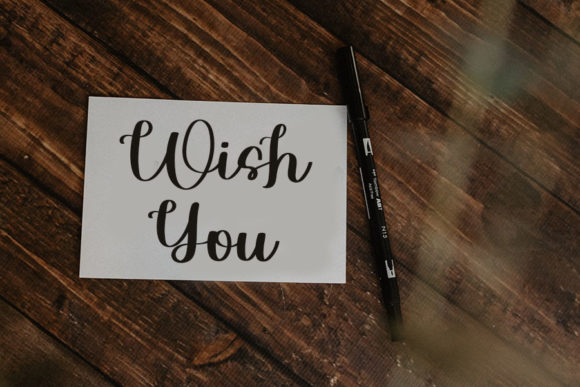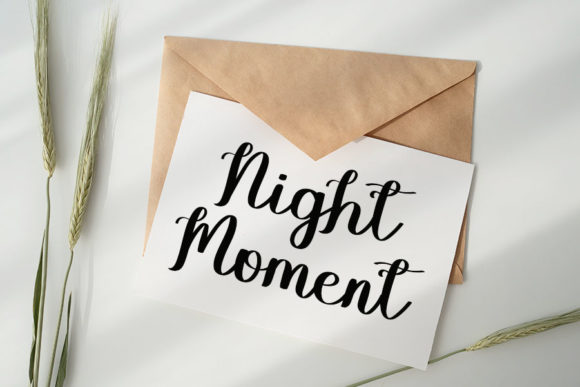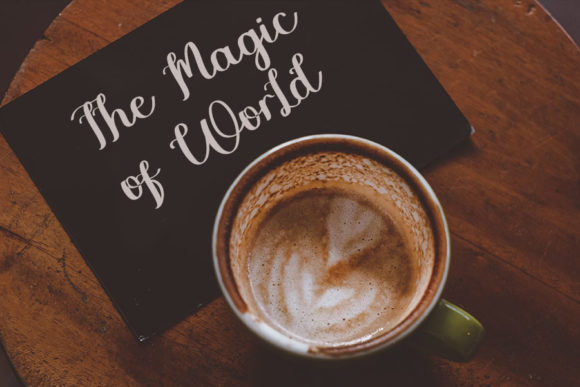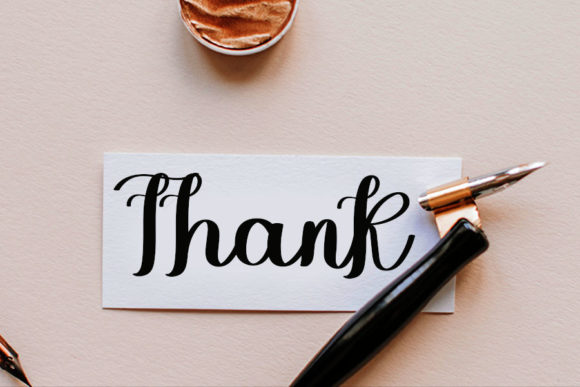
Halloween Font: Add a Spooky Touch to Your Designs with this Lovely Script Font
Halloween is just around the corner, and what better way to get into the spirit than with a font that’s as playful and charming as the holiday itself? Look no further than the Halloween font, a lovely script font that features charming, playful characters that seem to dance along the baseline. In this article, we’ll take a closer look at this delightful font and explore how you can add it to your most creative ideas to make them stand out.
What is the Halloween Font?
The Halloween font is a script font that is perfect for adding a touch of whimsy and playfulness to your designs. With its charming, cursive characters that seem to dance along the baseline, this font is sure to add a spooky touch to any project. Whether you’re designing invitations, decorations, or other Halloween-themed items, the Halloween font is sure to make your creations stand out.
Features of the Halloween Font
So what makes the Halloween font so special? Here are just a few of its key features:
- Playful characters: The Halloween font features playful, cursive characters that seem to dance along the baseline. Each character is carefully crafted to add a touch of whimsy and fun to your designs.
- Charming and elegant: Despite its playful nature, the Halloween font is also charming and elegant, making it perfect for a wide range of design projects.
- Easy to read: The Halloween font is easy to read, even at small sizes, making it perfect for use in a variety of applications, from invitations to decorations.
How to Use the Halloween Font
So how can you use the Halloween font in your designs? Here are a few ideas to get you started:
- Halloween invitations: Use the Halloween font to create spooky and fun invitations for Halloween parties, trick-or-treaters, or other Halloween-themed events.
- Decorations: Add a touch of whimsy to your Halloween decorations with the Halloween font. Use it to create signs, banners, or other decorative items that are sure to add to the spooky atmosphere.
- Crafts: The Halloween font is also perfect for use in crafts, such as scrapbooking, card making, or other paper crafts. Add a touch of Halloween spirit to your creations with this playful font.
Tips for Using the Halloween Font
Here are a few tips for using the Halloween font in your designs:
- Use it sparingly: While the Halloween font is playful and fun, it can be overwhelming if used too much. Use it sparingly to add a touch of whimsy to your designs.
- Pair it with other fonts: The Halloween font pairs well with other fonts, such as sans serif fonts or serif fonts. Experiment with different font combinations to find the one that works best for your design.
- Experiment with colors: The Halloween font looks great in a variety of colors, from traditional Halloween colors like orange and black to more bright and bold colors. Experiment with different colors to find the one that works best for your design.
The Halloween font is a lovely script font that is perfect for adding a touch of whimsy and playfulness to your designs. With its charming, playful characters that seem to dance along the baseline, this font is sure to make your creations stand out. Whether you’re designing invitations, decorations, or other Halloween-themed items, the Halloween font is sure to add a spooky touch to your projects. So why not give it a try and see how it can add a touch of Halloween spirit to your designs?
So add this font to your most creative ideas, and notice how it makes them stand out! You can use it for a wide range of design projects, from digital designs to print materials. The Halloween font is a versatile and fun font that is sure to bring a smile to your face and a touch of Halloween spirit to your designs.